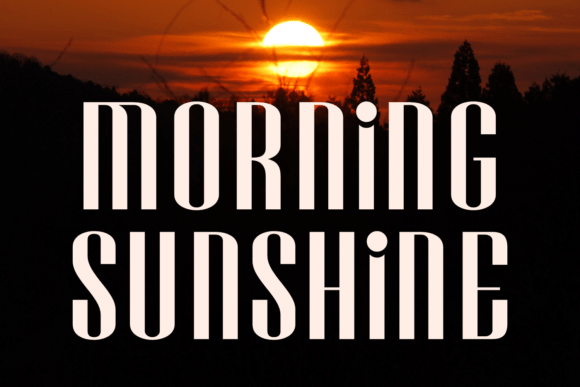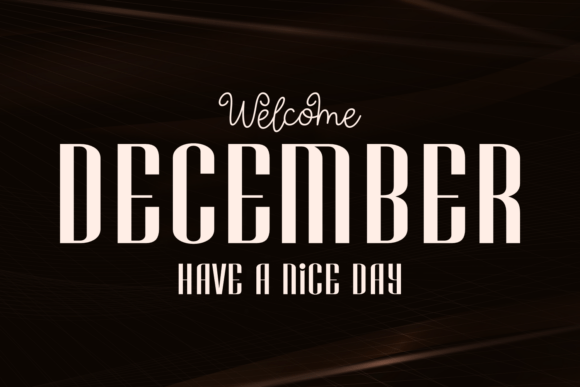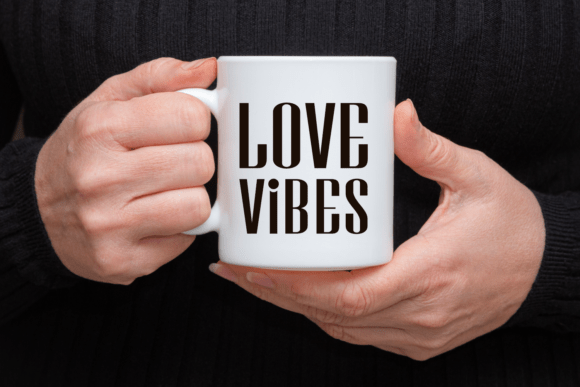
Introduction to Funky Milky Font
Funky Milky is a distinct and impactful tall sans serif display font that features an ultra-condensed, vertical design.
Its unique aesthetic blends modern simplicity with a retro, almost Art Deco-inspired structure, making it highly stylish and attention-grabbing This font is perfect for fashion editorials, cosmetic branding, dramatic headlines, poster design, and any project that requires a powerful, elegant, and exceptionally vertical display typeface.